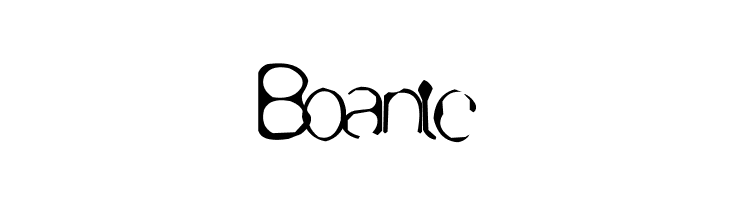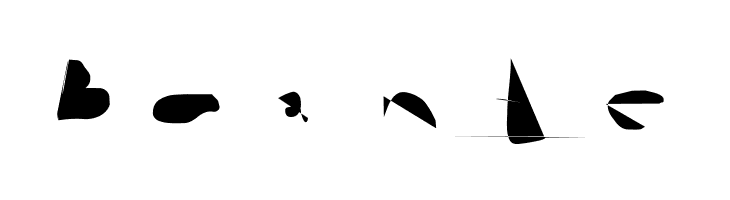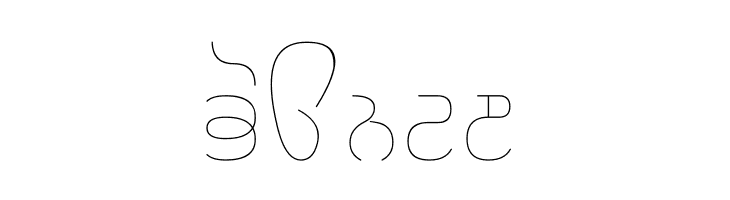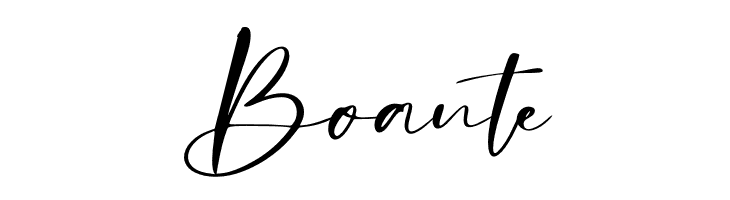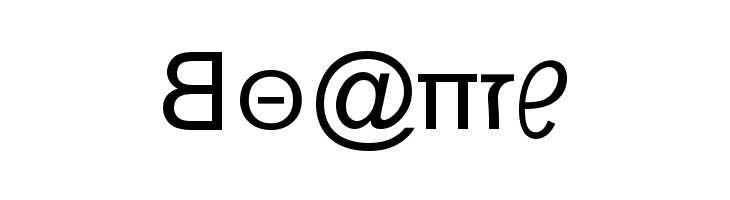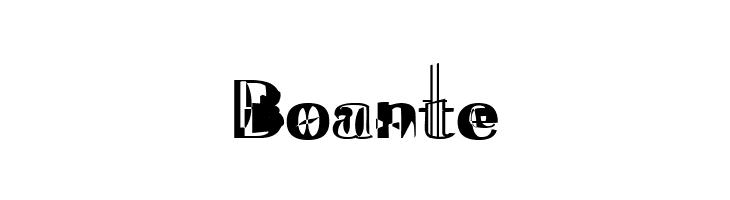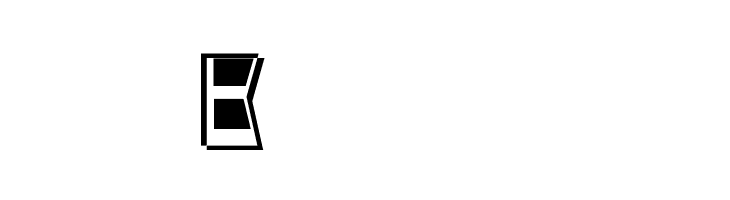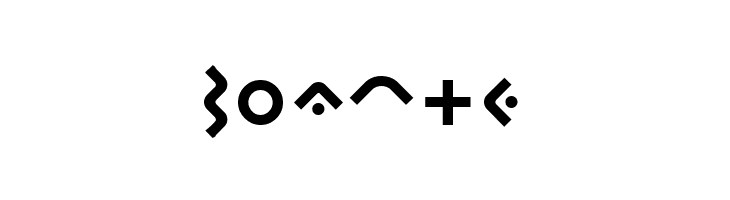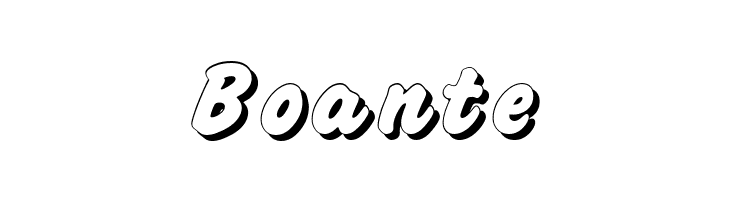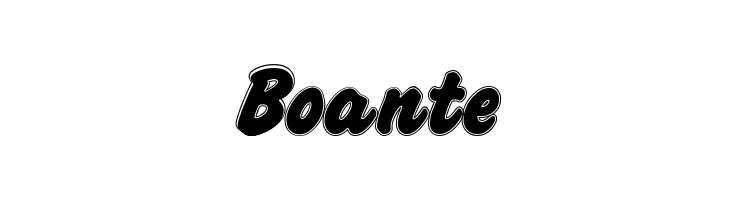
Challenge Contour Font
Font by Dieter Steffmann
A bold, outlined font with a dynamic and playful style.
Challenge Shadow Font
Font by Dieter Steffmann
A bold, shadowed font with a playful, three-dimensional style.
M18_CHALLENGES Font
A bold, geometric font with a modern, digital aesthetic.
Sketchbook Challenge Font
Font by Jonathan Harris - www.tattoowoo.com
A playful and eclectic font with a mix of artistic and whimsical styles.
Vtks-Challenge Font
Maelle Keita
A bold, distressed font with a grunge aesthetic.
THE BOLD FONT FREE VERSION BOLD Font
Font by
theboldfont
A bold, modern font with thick strokes and geometric shapes for impactful headlines.
Daily Challenge DEMO Regular Font
A playful, handwritten font with tall, narrow letters and a casual style.
Pinball Challenge Deluxe Font
Justin Callaghan
A pixelated, retro-style font inspired by classic arcade games.
LMS Remembering SS Challenger Font
London's Letters - www.londonsletters.com/
A decorative font with space shuttle motifs integrated into each character.
Whisper Challenge Font
Font by Vunira Design
A playful and dynamic handwritten font with bold, expressive letterforms.
Challenge - Personal Use Font
A fluid and elegant script font with decorative, cursive letterforms.
Greatest Challenge Demo Regular Font
177Studio.com